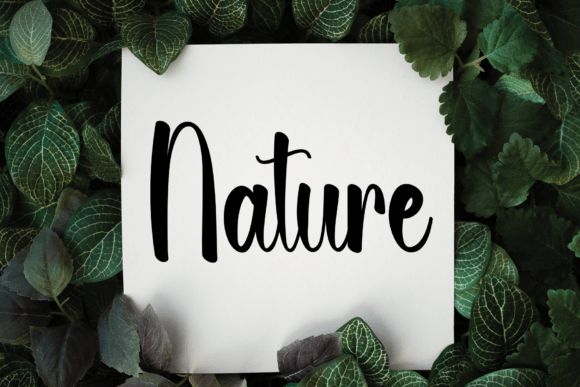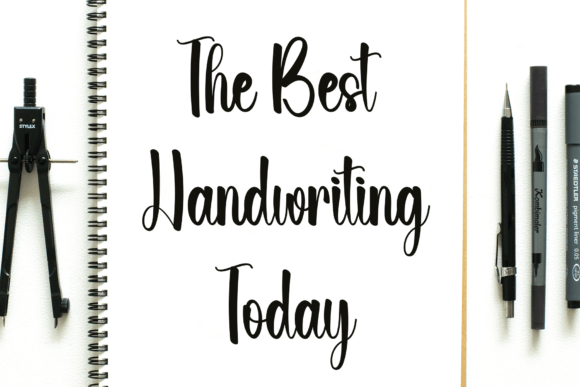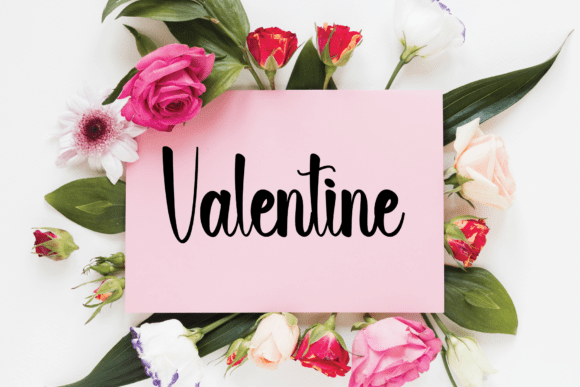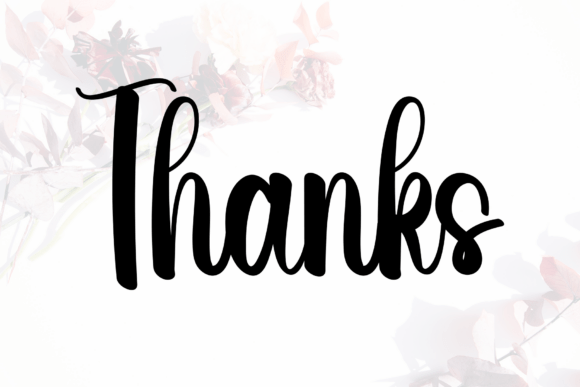
Introducing Anniveday Font: The Perfect Blend of Luxury and Casual
Are you a designer or crafter looking for a font that exudes elegance and sophistication, yet still has a relaxed and sporty vibe? Look no further than Anniveday Font, a beautiful handwritten font that looks like it was drawn with a marker. In this article, we’ll dive into the world of Anniveday Font, exploring its features, uses, and benefits, and why it’s a must-have for any creative project.
What is Anniveday Font?
Anniveday Font is a unique and stylish handwritten font that is perfect for adding a touch of luxury and elegance to your designs. With its marker-like feel, this font has a relaxed and sporty vibe that’s perfect for a wide range of applications, from branding and logos to wedding supplies and greeting cards.
One of the standout features of Anniveday Font is its versatility. Whether you’re looking to create a sophisticated and high-end design or a more casual and laid-back look, this font can do it all. Its elegant and refined appearance makes it perfect for luxury brands, while its sporty and relaxed feel makes it ideal for more casual and creative projects.
Features of Anniveday Font
So, what makes Anniveday Font so special? Here are just a few of its key features:
- Handwritten with a marker-like feel: Anniveday Font has a unique and authentic handwritten feel that looks like it was drawn with a marker.
- Relaxed and sporty vibe: This font has a laid-back and casual feel that’s perfect for creating designs that are fun and youthful.
- Luxurious and elegant appearance: Despite its casual feel, Anniveday Font still has a sophisticated and refined appearance that’s perfect for high-end brands and luxury designs.
- Highly versatile: This font can be used for a wide range of applications, from branding and logos to wedding supplies and greeting cards.
Uses of Anniveday Font
So, what can you use Anniveday Font for? The possibilities are endless! Here are just a few ideas to get you started:
- Branding and logos: Anniveday Font is perfect for creating unique and memorable logos that stand out from the crowd.
- Wedding supplies: This font is ideal for creating beautiful and elegant wedding stationery, including invitations, save-the-dates, and thank-you cards.
- Greeting cards: Anniveday Font is perfect for creating personalized and stylish greeting cards for any occasion.
- Fashion and lookbooks: This font is great for creating stylish and sophisticated fashion designs, including lookbooks and marketing materials.
- Marketing promotions: Anniveday Font can be used to create eye-catching and effective marketing materials, including flyers, brochures, and social media graphics.
Benefits of Using Anniveday Font
So, why should you choose Anniveday Font for your next project? Here are just a few benefits of using this amazing font:
- Unique and memorable designs: Anniveday Font allows you to create unique and memorable designs that stand out from the crowd.
- Time-saving: With Anniveday Font, you can create professional-looking designs in no time, saving you time and effort.
- High-quality design: Anniveday Font is designed to the highest standards, ensuring that your designs look professional and polished.
In conclusion, Anniveday Font is a must-have for any designer or crafter looking to add a touch of luxury and elegance to their designs. With its unique marker-like feel, relaxed and sporty vibe, and highly versatile nature, this font is perfect for a wide range of applications. Whether you’re creating branding and logos, wedding supplies, greeting cards, or marketing materials, Anniveday Font is the perfect choice. So why wait? Download Anniveday Font today and start creating stunning designs that stand out from the crowd!